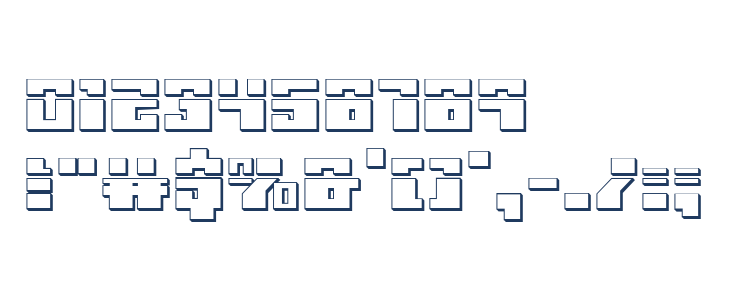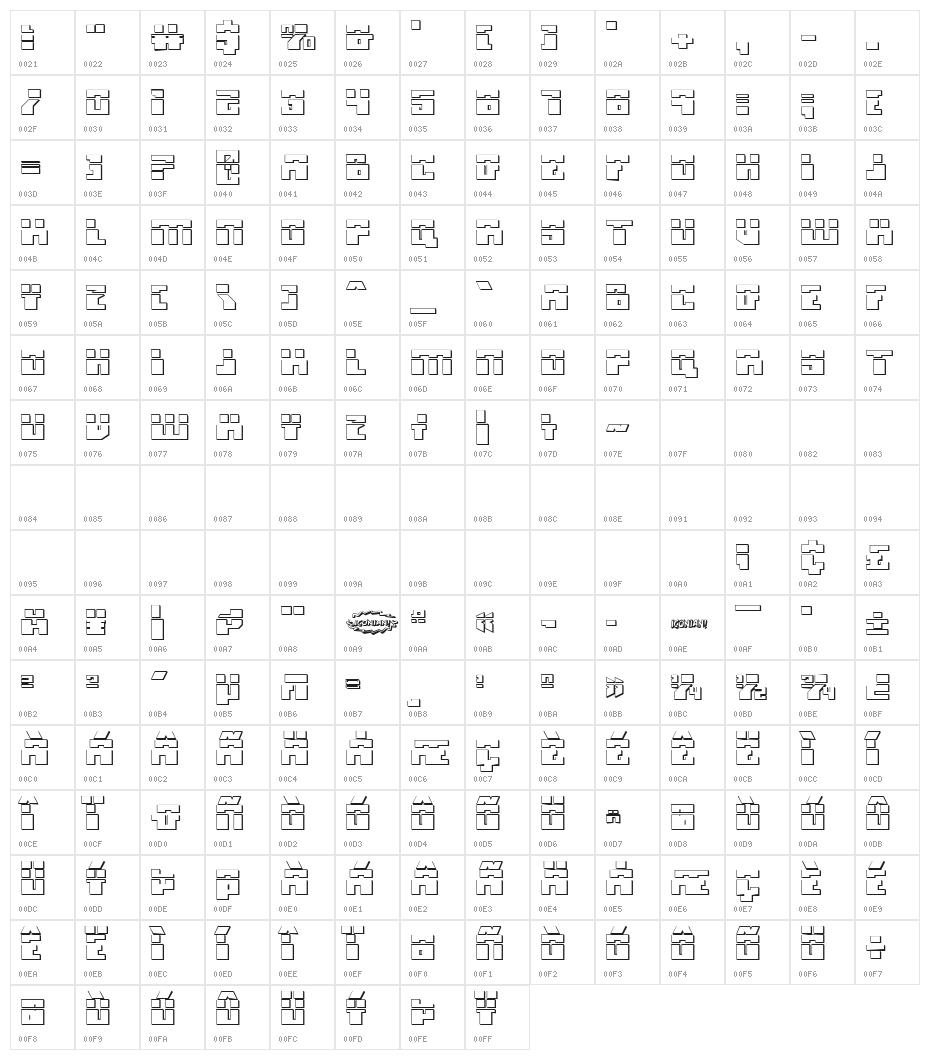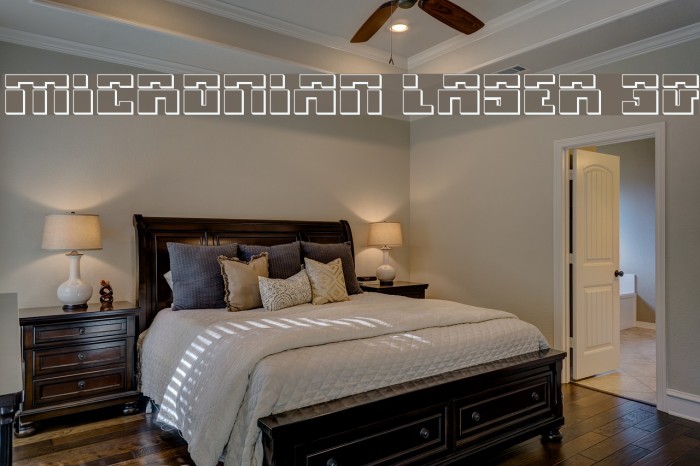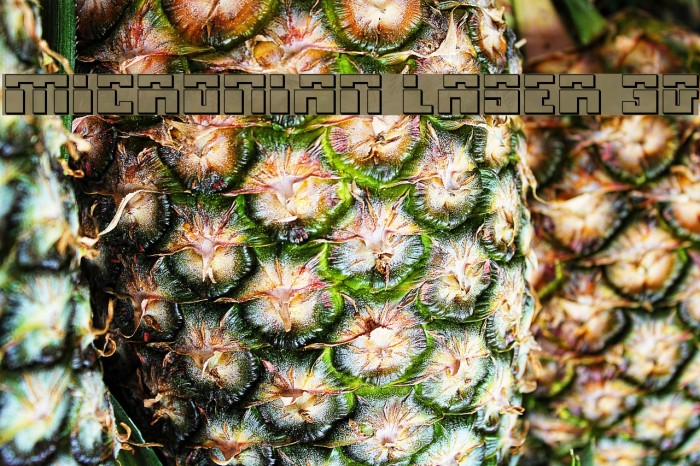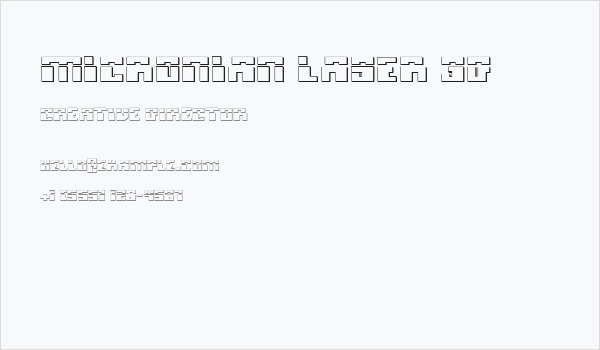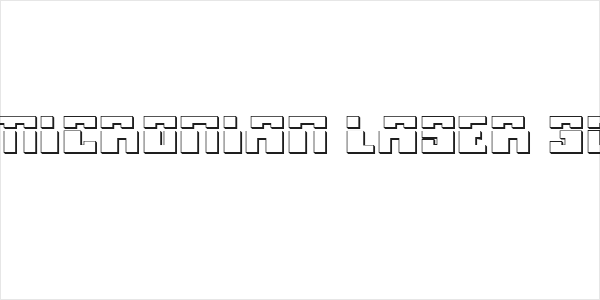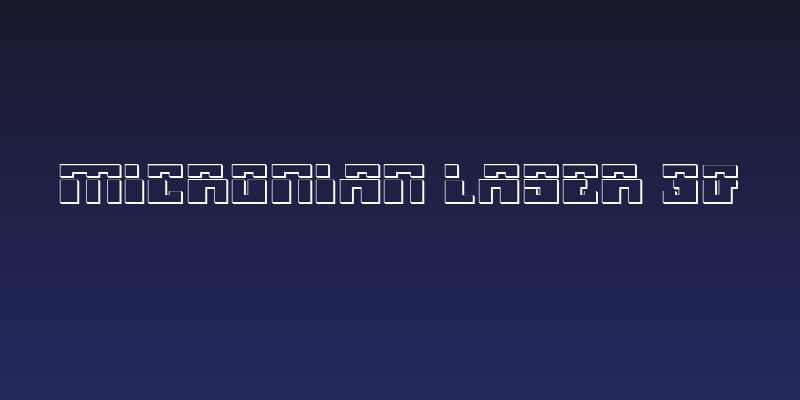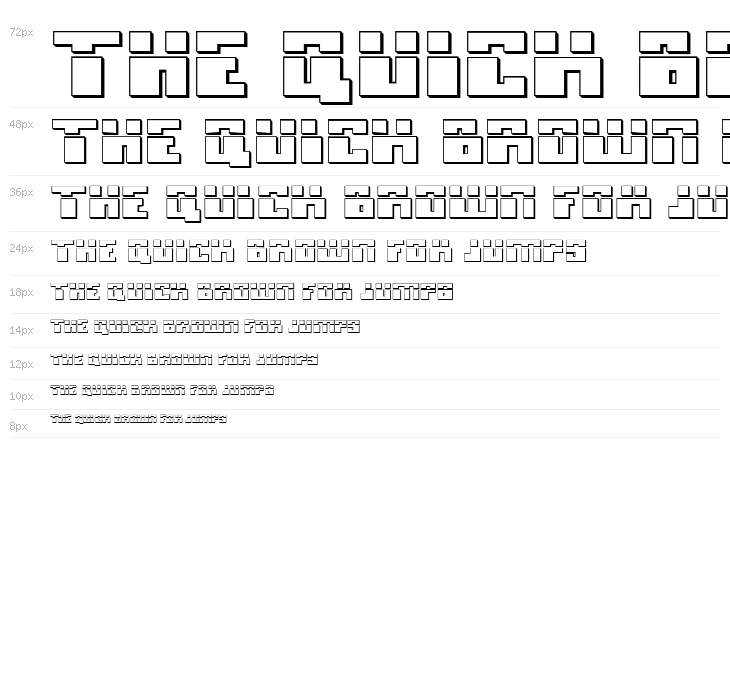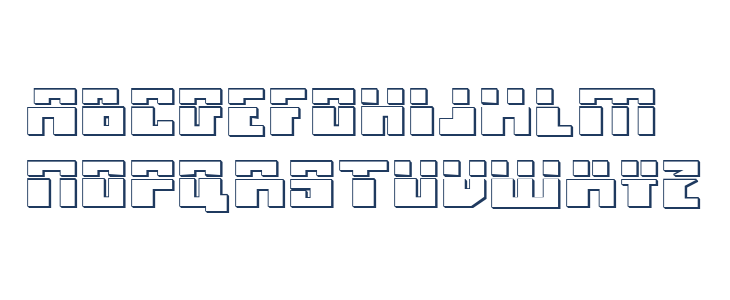
Micronian Laser 3D Font
Micronian Laser 3D Description
This font features a futuristic, geometric design with a three-dimensional effect. Each character is constructed with bold, angular lines and a hollow interior, giving it a distinct, tech-inspired appearance. The uppercase and lowercase letters maintain a consistent style, with sharp edges and a blocky structure. Numbers and special characters follow the same design principles, ensuring uniformity across the typeface. The overall look is reminiscent of digital or sci-fi themes, making it ideal for projects that require a modern and innovative touch.
| Proposed Projects | Ideal for tech-related branding, sci-fi movie posters, video game titles, and digital art projects. |